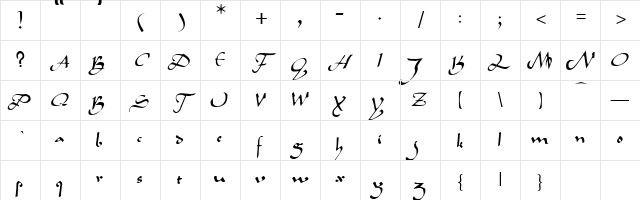
Caliph Regular
Design Context for Caliph
Caliph is a composed and adaptable typeface that performs quietly and consistently across a wide range of design contexts.